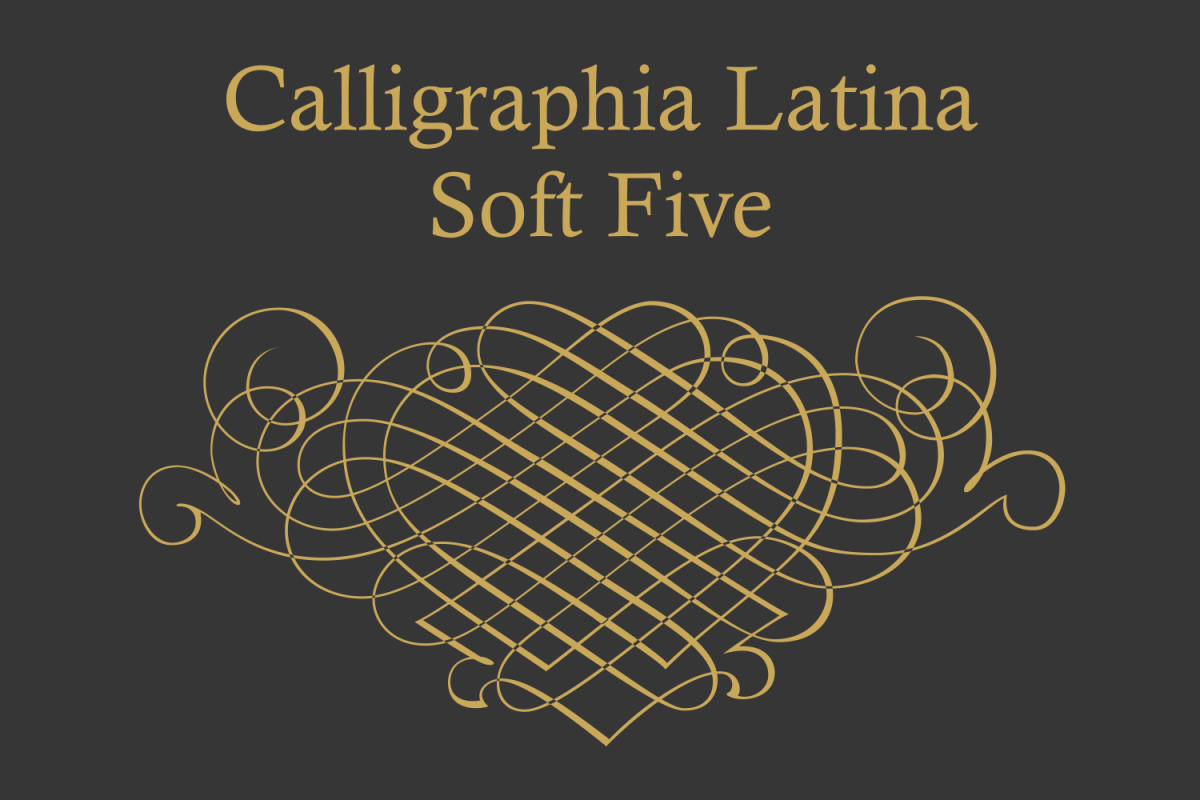
Calligraphia Latina Soft Five
One of the most successful ornament fonts is CalligraphiaLatina. It is part of a trend that’s been quite popular lately: messed-up calligraphy.
CalligraphiaLatina is a worldwide best-seller from IntellectaDesign.. Besides the original CalligraphiaLatina, its family of fonts (13 different sets) represents a complete solution of intrincated fleurons and ornaments to use with several styles of artworks.